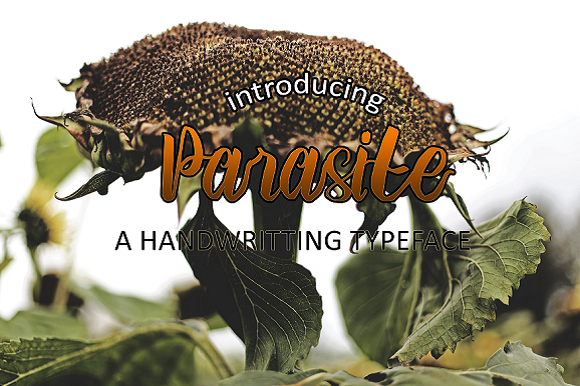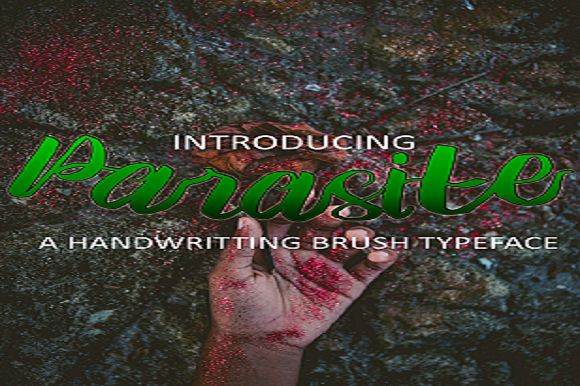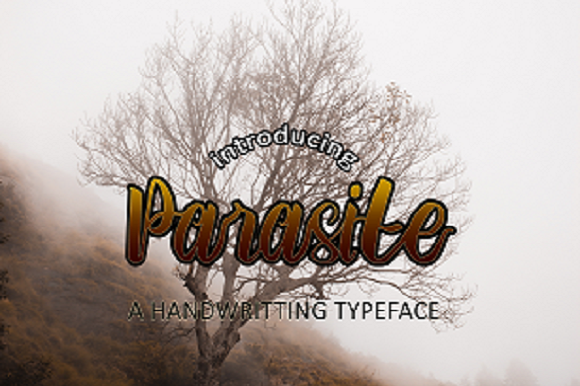
Parasite Font
About Parasite Font
The Parasite is a fun, bold handwriting font with a fresh and modern style.
It can be used for logos, posters, headings, and much more!